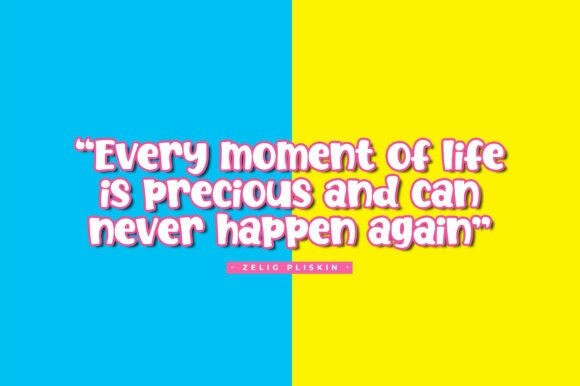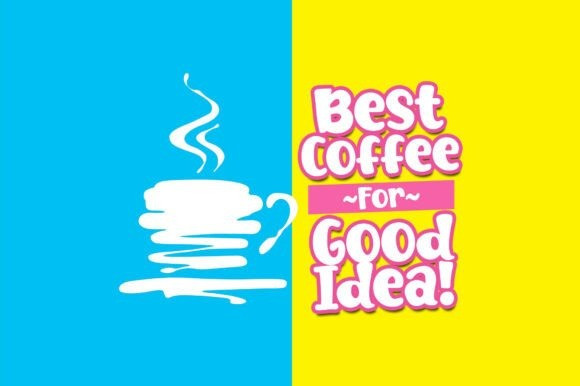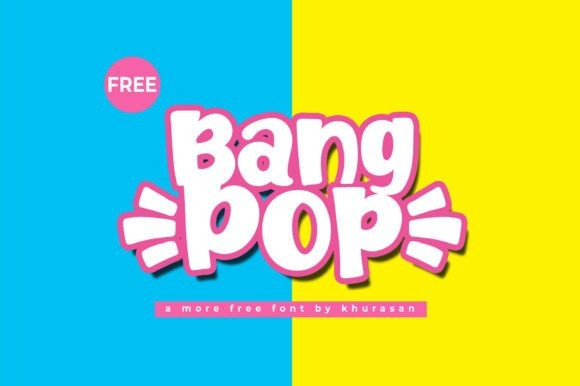
Bangpop Font
Bangpop Font a burst of high-octane energy into your designs with the Bangpop font, a bold, bouncy display typeface that jumps off the page.This Bangpop typeface draws heavy inspiration from classic comic book aesthetics and pop art explosions, featuring thick, rounded letterforms that carry a natural sense of impact and movement. It is the ultimate choice for creators looking to craft eye-catching YouTube thumbnails, vibrant posters, or playful children’s book covers.
Because the Bangpop font possesses such a distinct, loud personality, it works exceptionally well for branding projects that need to feel fun, approachable, and larger-than-life. Pair this Bangpop typeface with bright, contrasting primary colors to lean into its superhero-esque vibes, or use it for gaming graphics and social media content to ensure your message captures immediate attention. Whether you are designing stickers or high-energy marketing materials, the Bangpop font provides the visual “punch” your layout deserves.